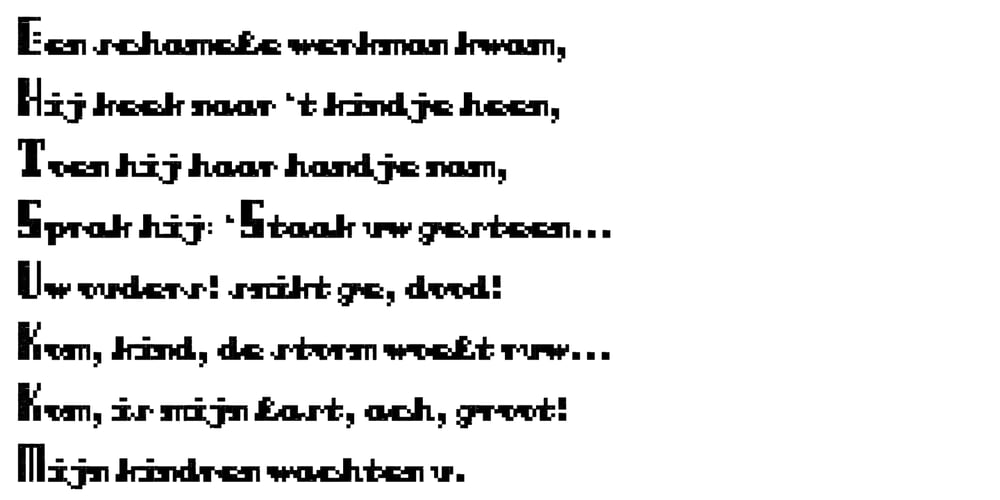
DF Dudok
DF Dudok font
DF Dudok Font Family was designed by Ko Sliggers and published by Dutchfonts. DF Dudok contains 1 styles and family package options. The DF Dudok is a minimal bitmap typeface which works very well in small sizes both on your screen and on paper. I am connected in a culinary way with the architects’ name W.M. Dudok. It was the first restaurant where I cooked under the critical eye of my chef Gerhard Braun. (Now La Stanza in Rotterdam) Well, it is incidently getting into my typeface work, the cook, the architect, his wife and…who knows